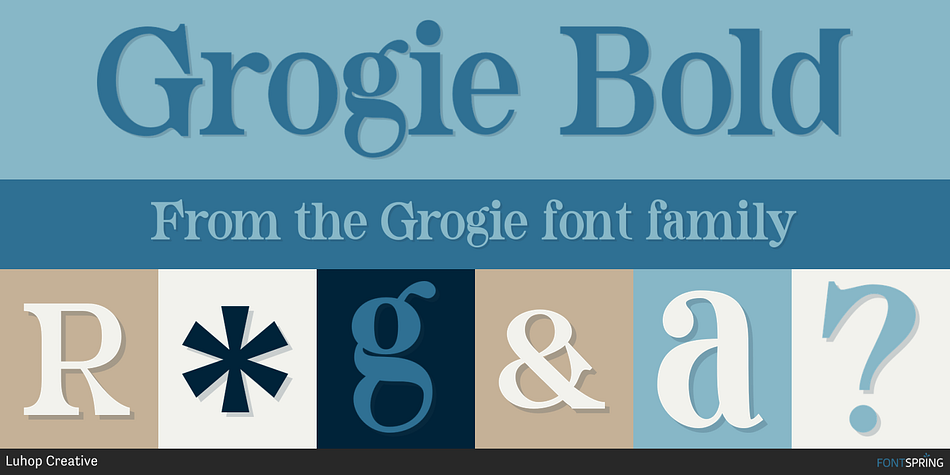
Grogie Bold
Grogie is a display serif font family. This typeface has six styles and was published by Luhop Creative.
Grogie font family consists of 6 families,is a high-contrast typography inspired by transitional and contemporary typography. Fonts extend their use by giving weights ranging from thin to black. The natural curve, a swollen and sloping stem, grows in character as the font gains weight. While the thinner weight has lowered contrast and optical correction to create a warm and soft look. Featuring beautiful, excellent weight and extensive language support.
The elegant modern font creates a unique design and is sure to steal the eye of the design target audience. Besides being unique, the Grogie font also has a luxury simple character that makes the design charming and luxurious. Grogie excels in display settings such as headlines, titles, branding projects, Logo design, packaging, magazine headings, advertising, short or long text.
Grogie Features:
Alternates Ligatures.